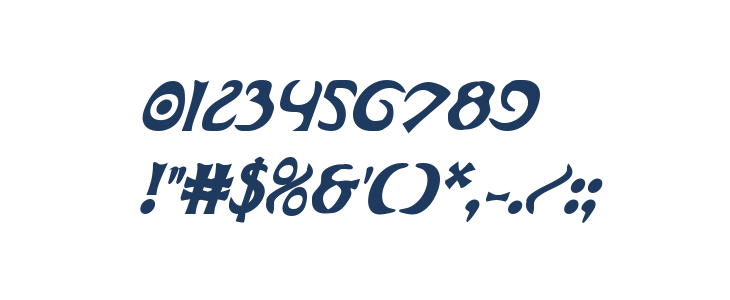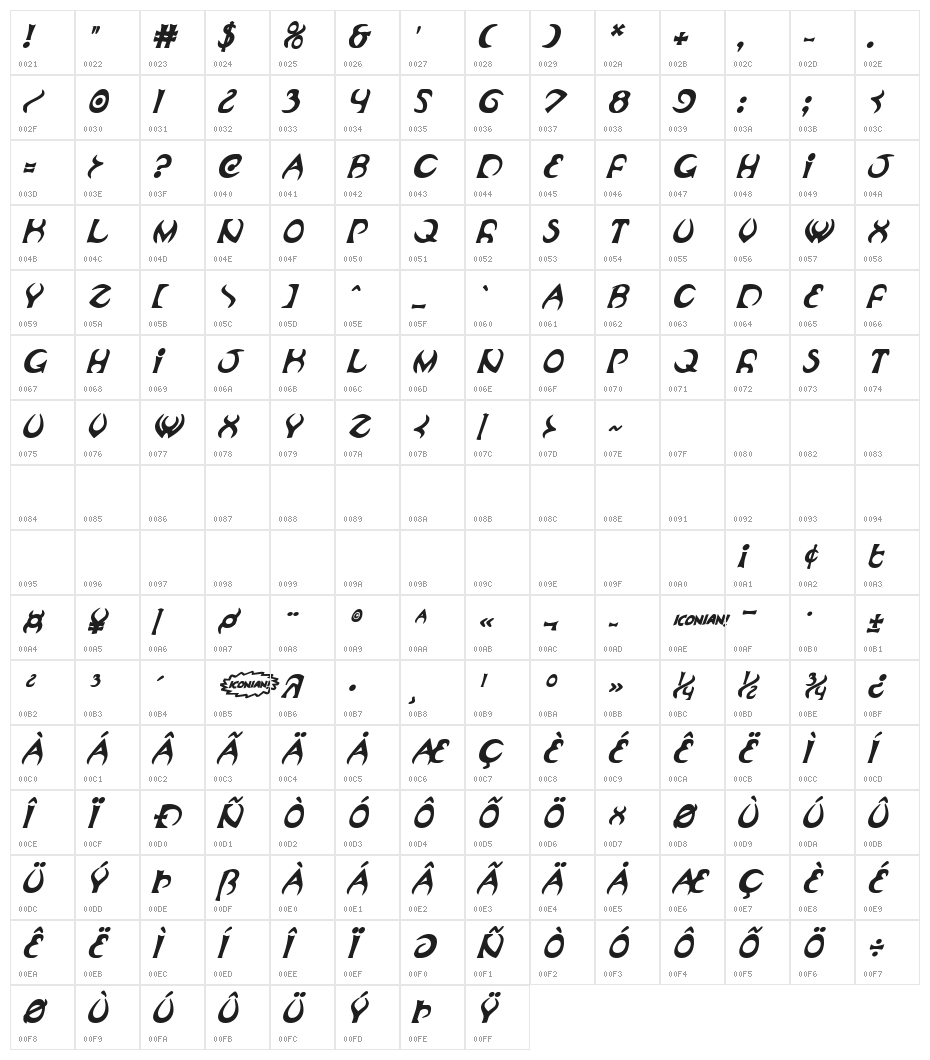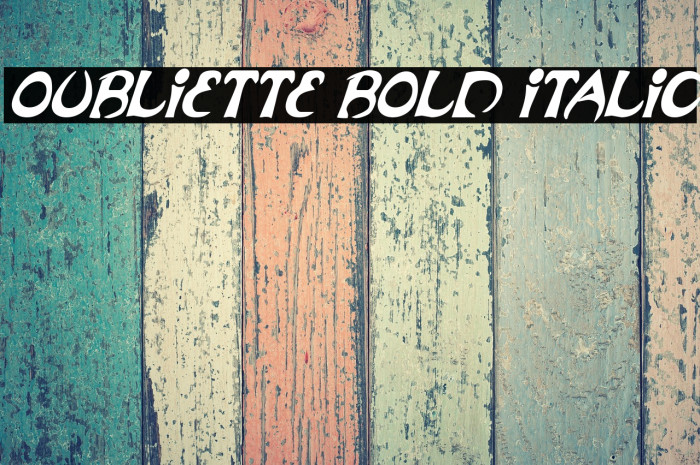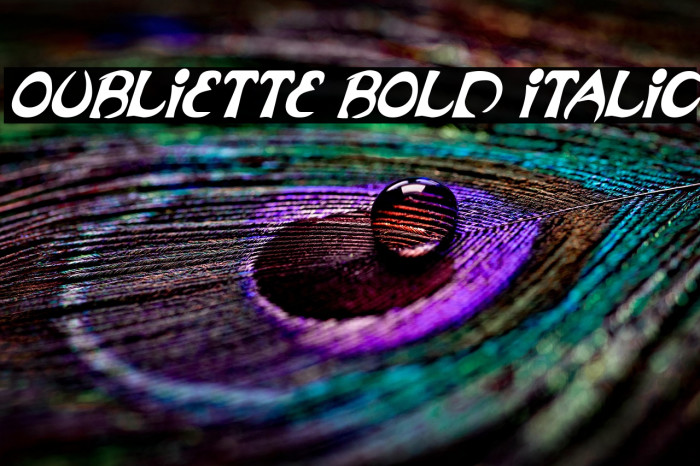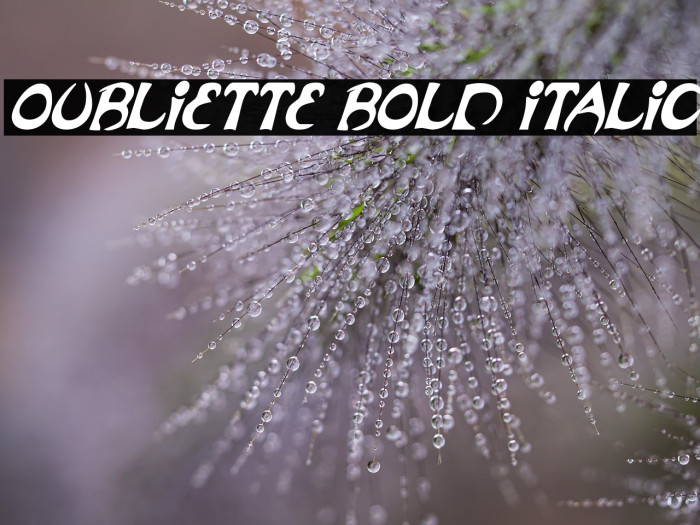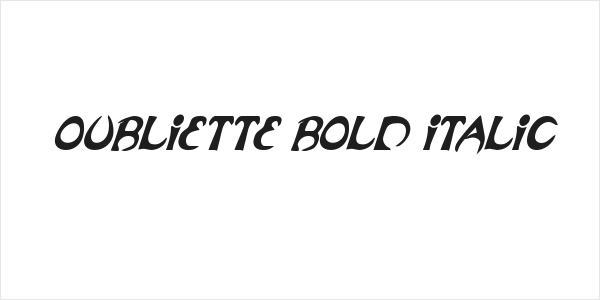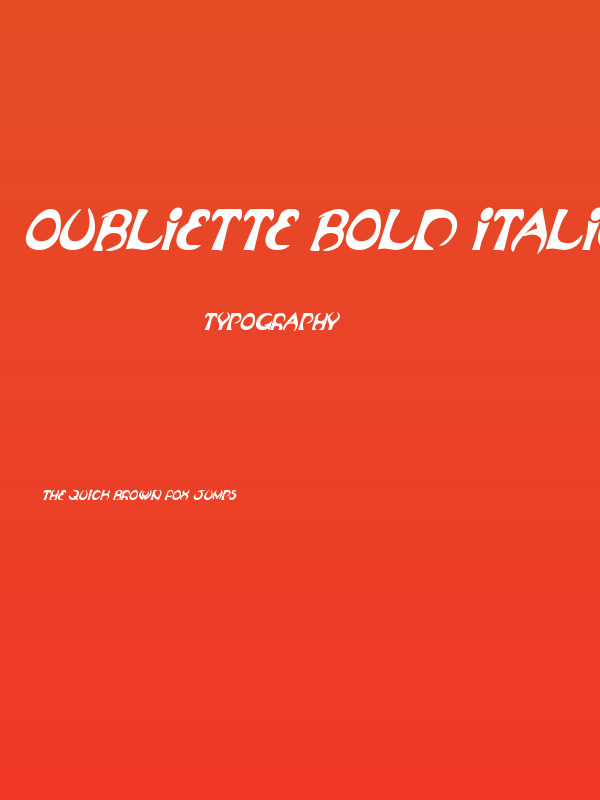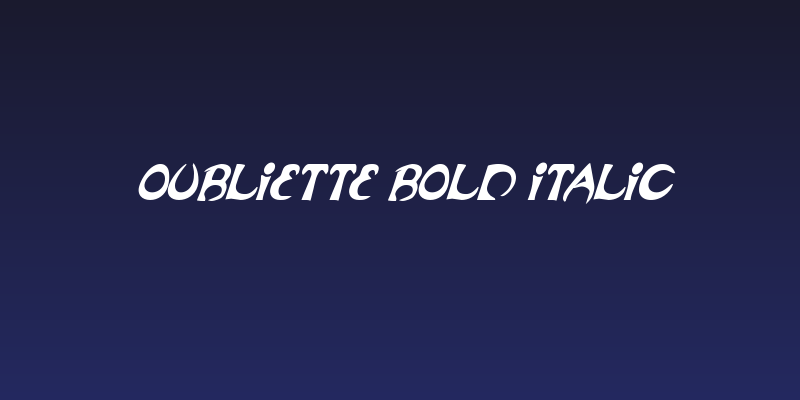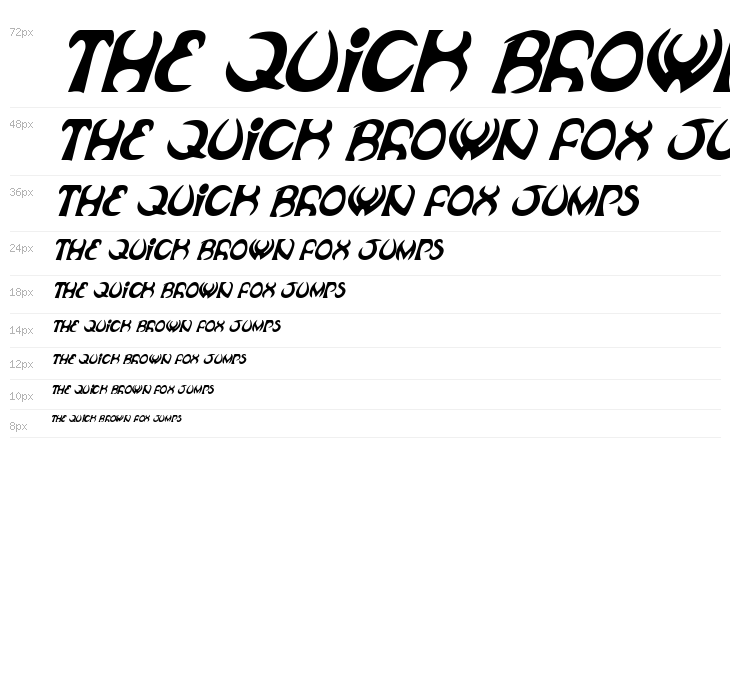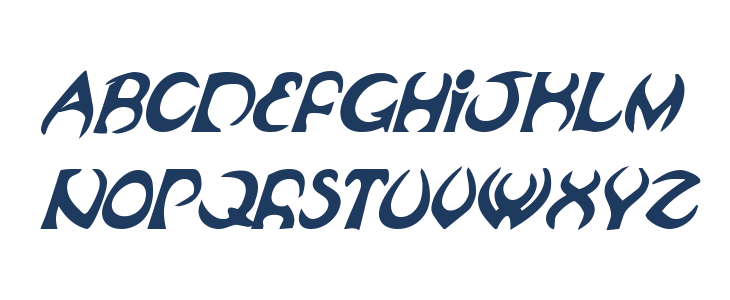
Oubliette Bold Italic Font
Oubliette Bold Italic Description
This font features a bold and italicized style with a dynamic and energetic appearance. The characters have a unique, flowing design with sharp angles and curves that create a sense of movement. The uppercase and lowercase letters maintain a consistent style, with the uppercase being slightly more pronounced. The numbers and special characters are designed to match the overall aesthetic, providing a cohesive look. The font's boldness and italic slant give it a strong presence, making it suitable for attention-grabbing designs.